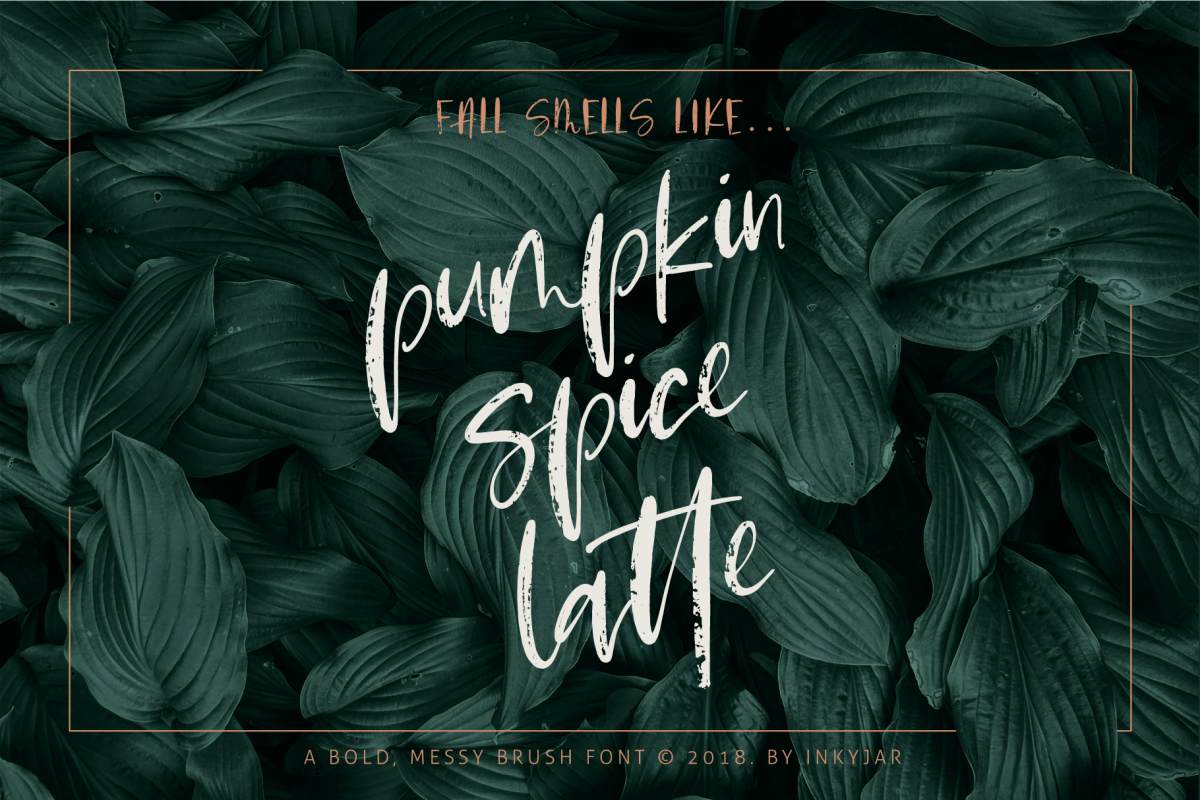
Pumpkin Spice Latte Brush Script is a perfect for branding, Instagram posts or quotes, and it comes with ligatures so you can keep the casual, handwritten brush stroke feel with nice, rough texture.